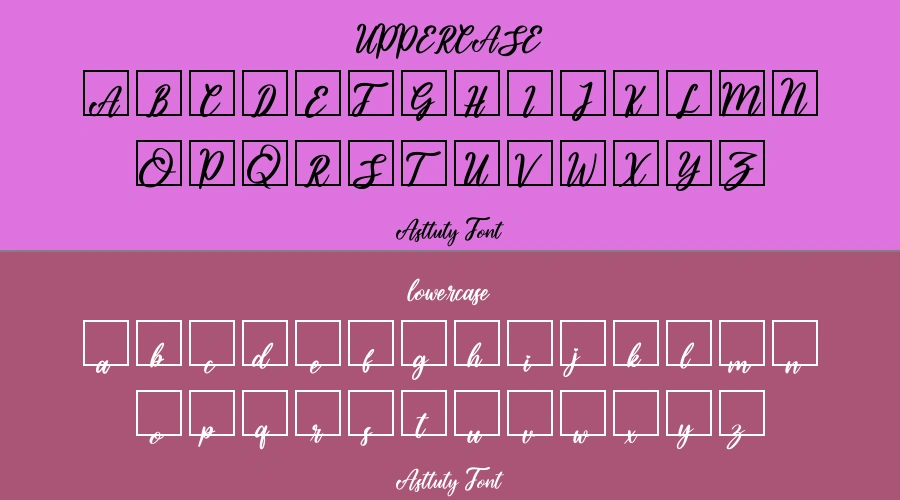
About Asttuty Font
Asttuty Font embodies typographic excellence through its masterful combination of distinctive terminals and market differentiation. Created for scientific journals, this typeface delivers exceptional sophistication and industrial strength across all applications. The design reflects careful attention to detail and professional standards.
Advanced capabilities include distinctive refined proportions and versatile oldstyle figures, giving designers creative control. When used in social media assets, Asttuty Font exhibits remarkable screen rendering. The harmonious balance between descender depth and professional recognition sets this typeface apart.